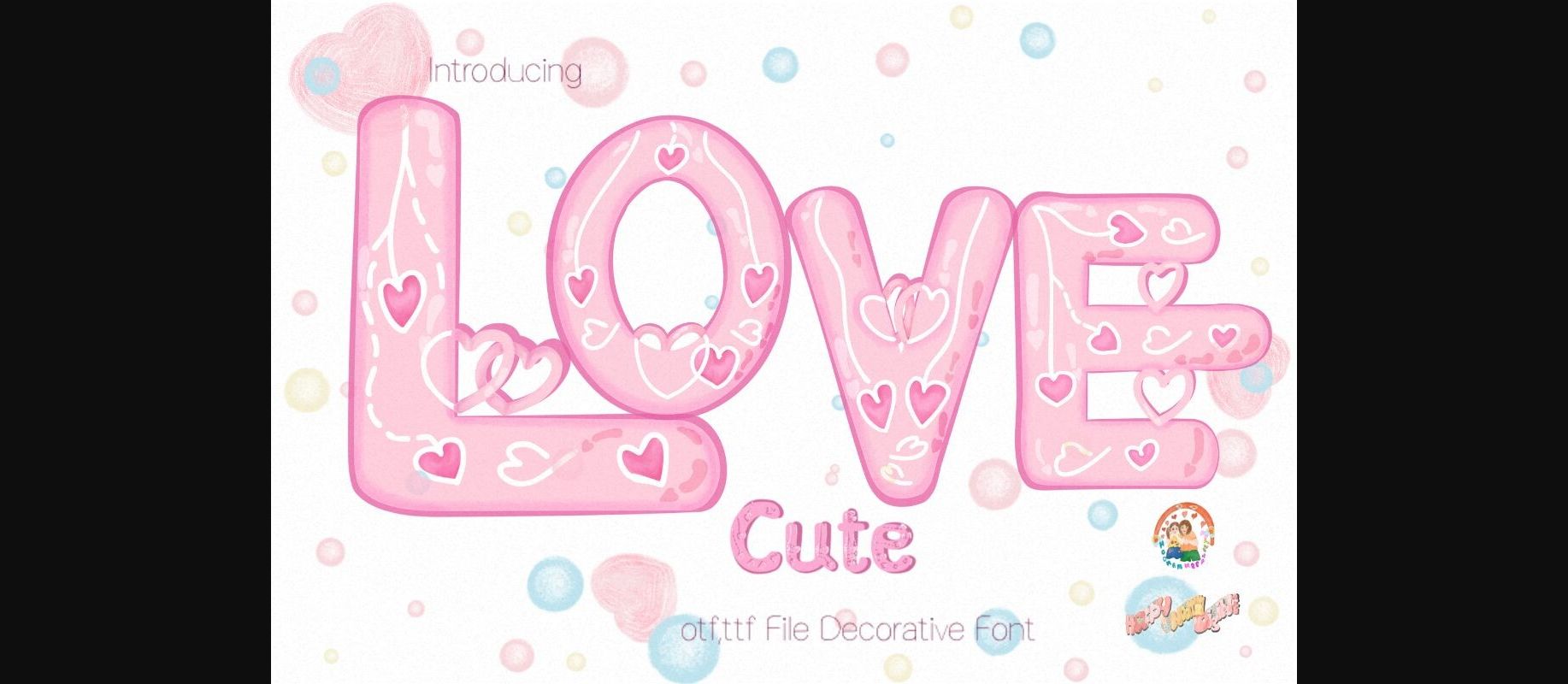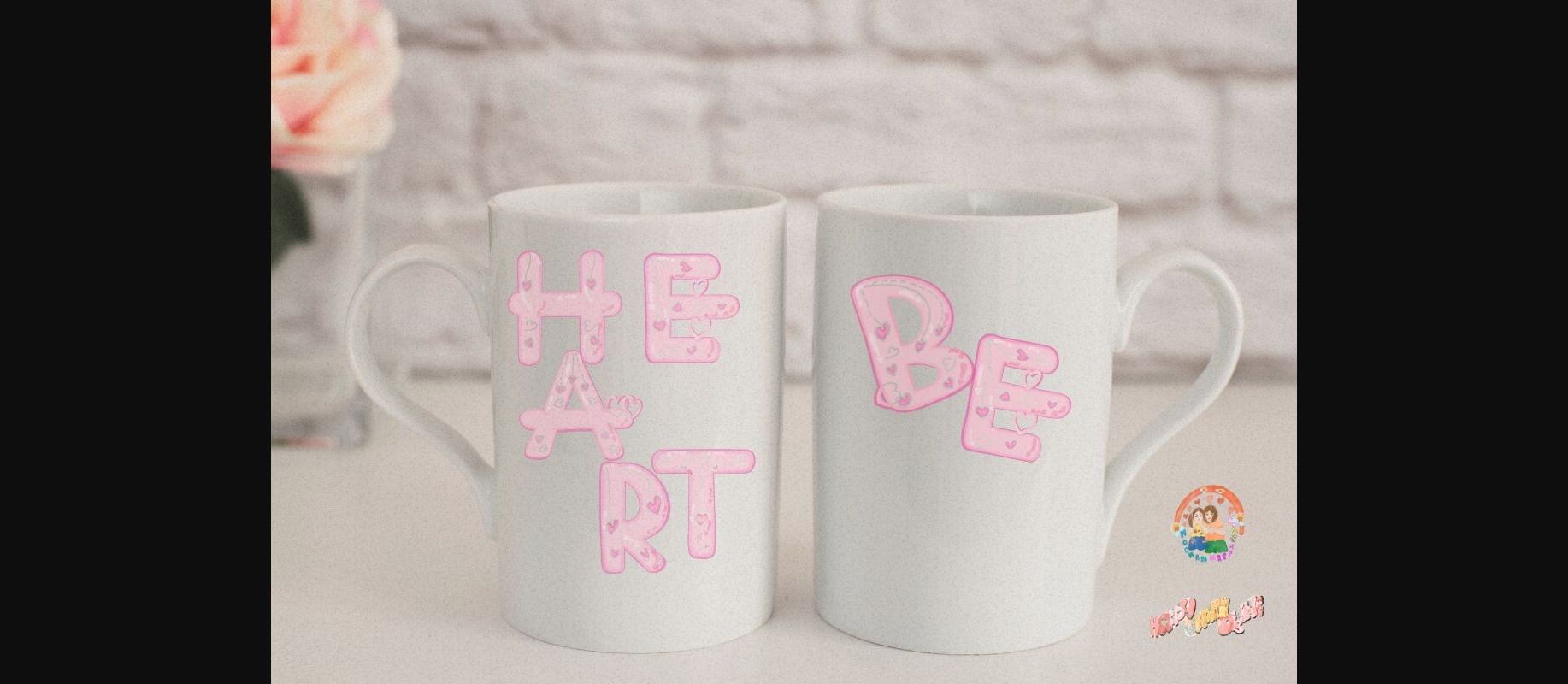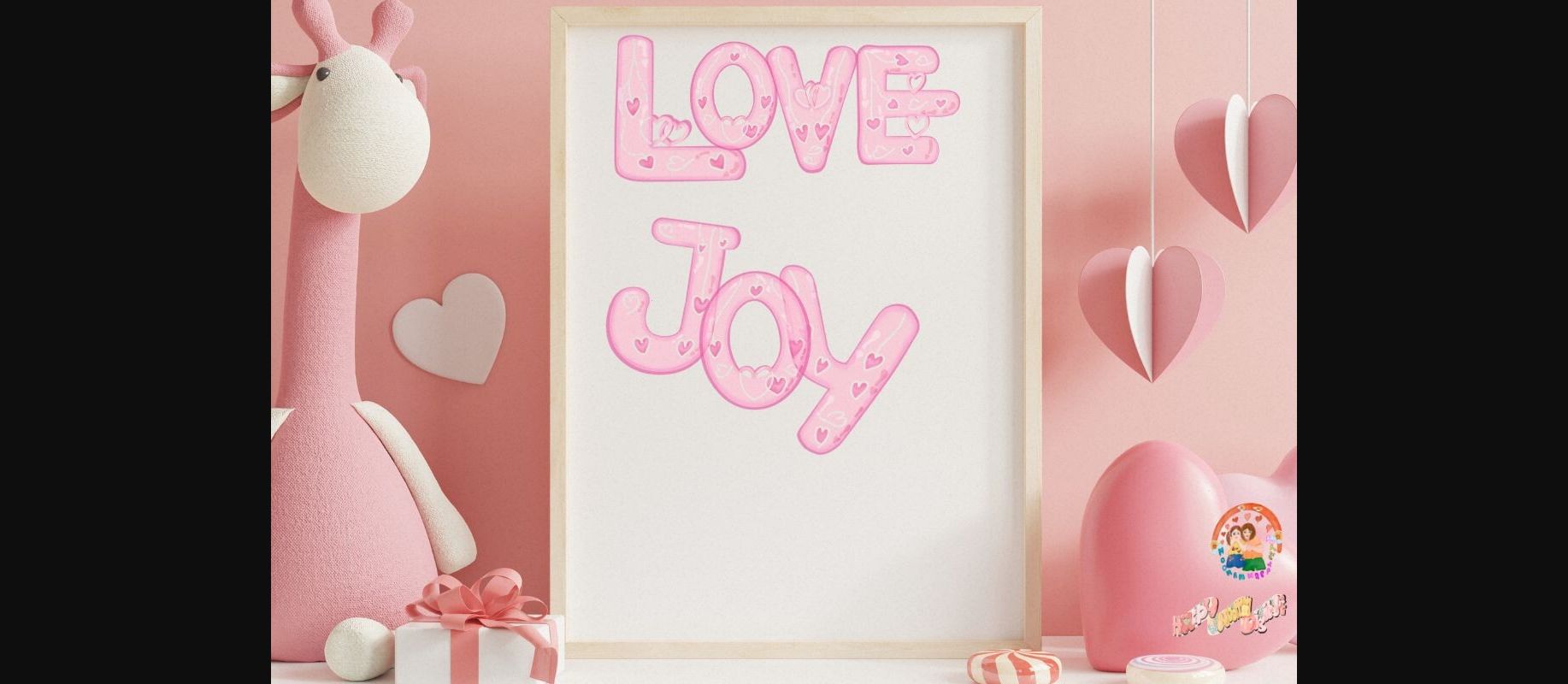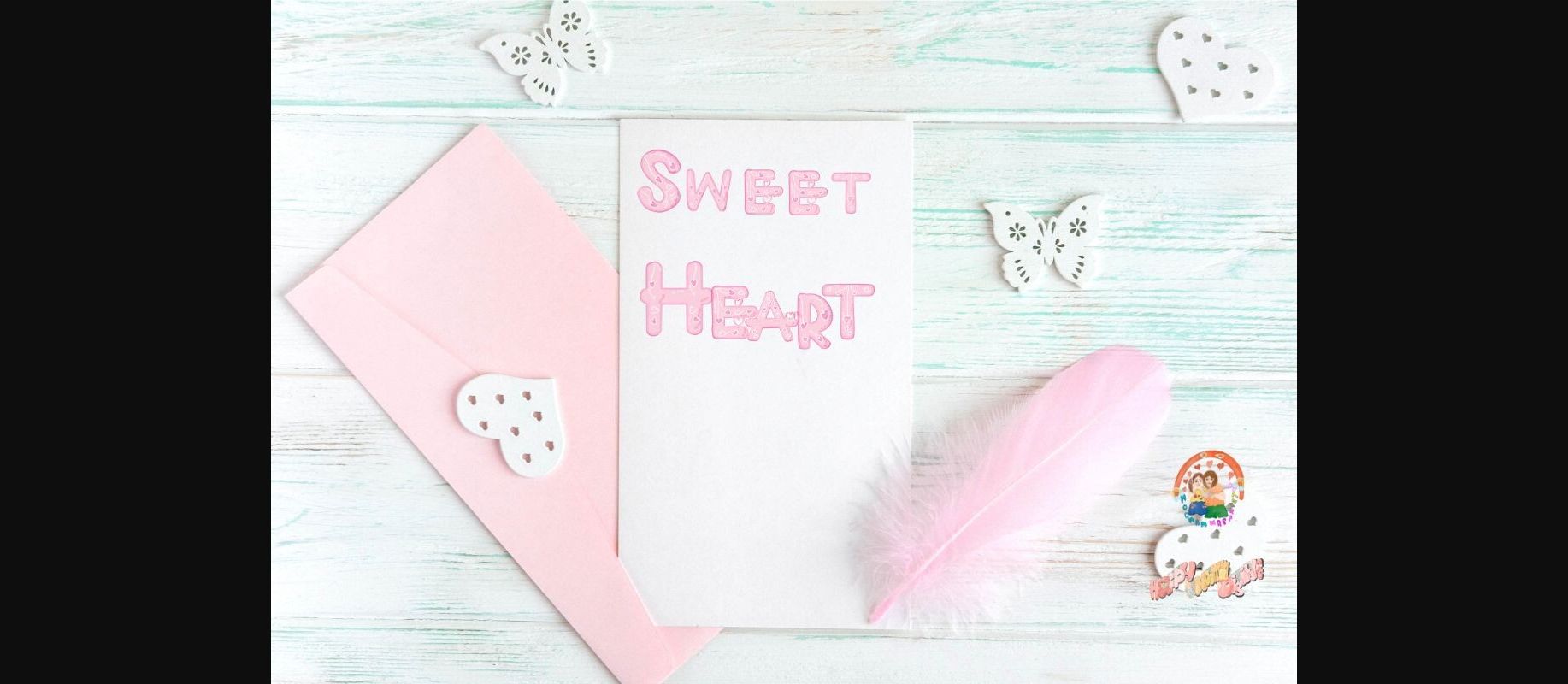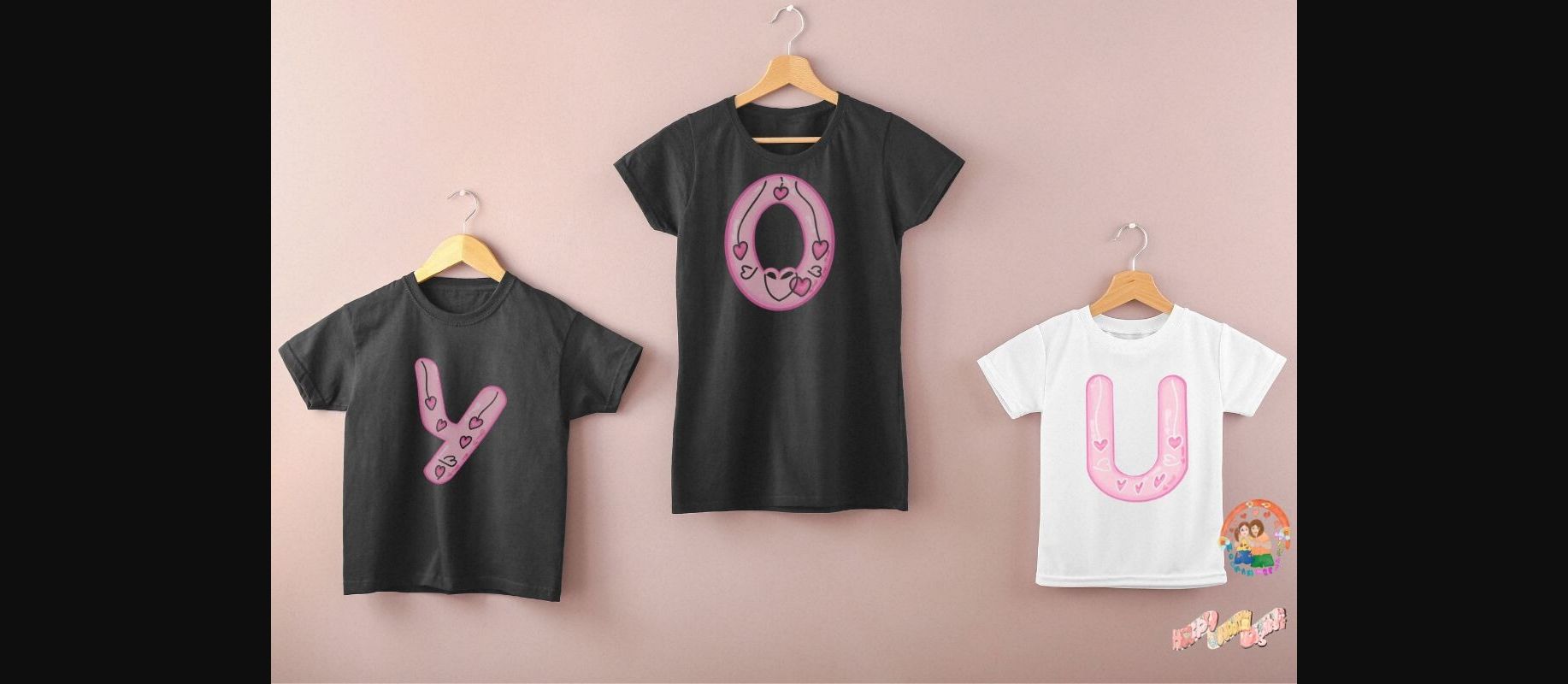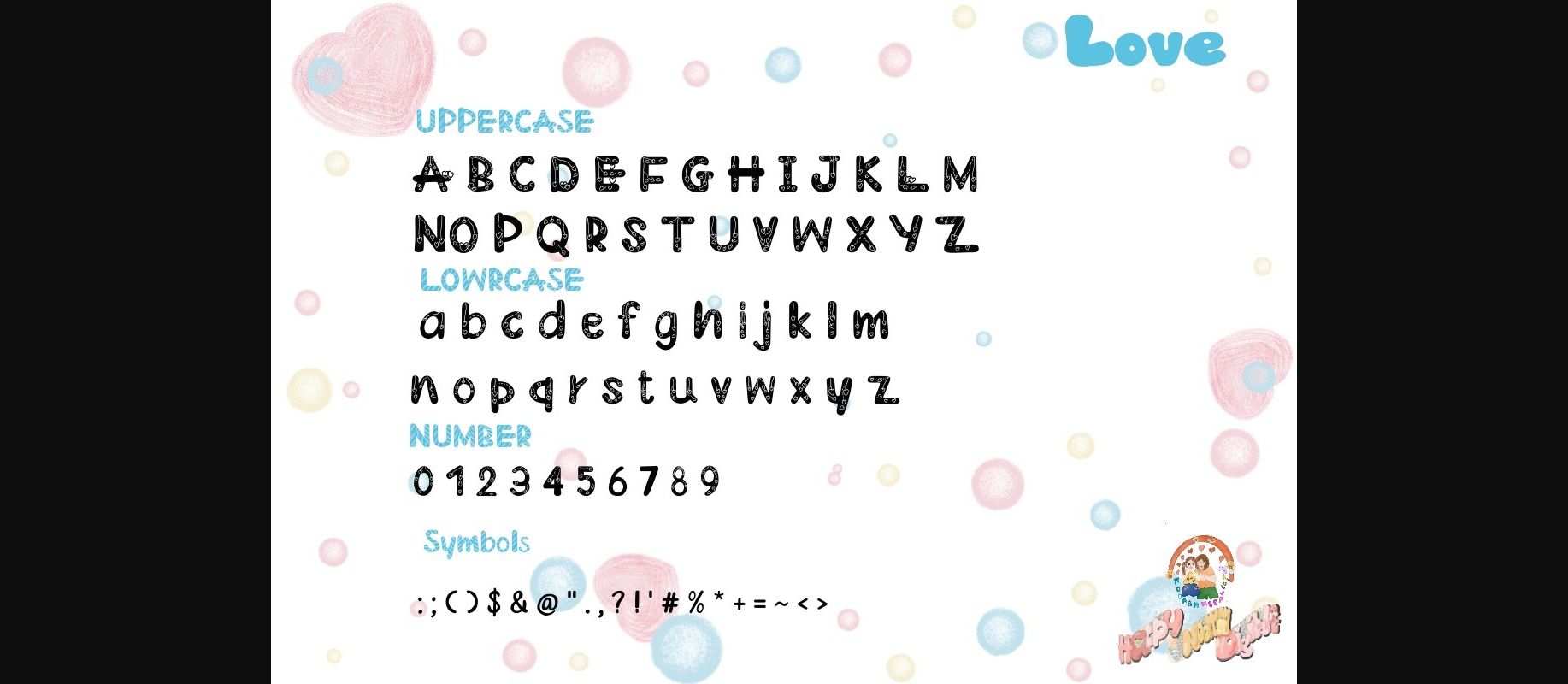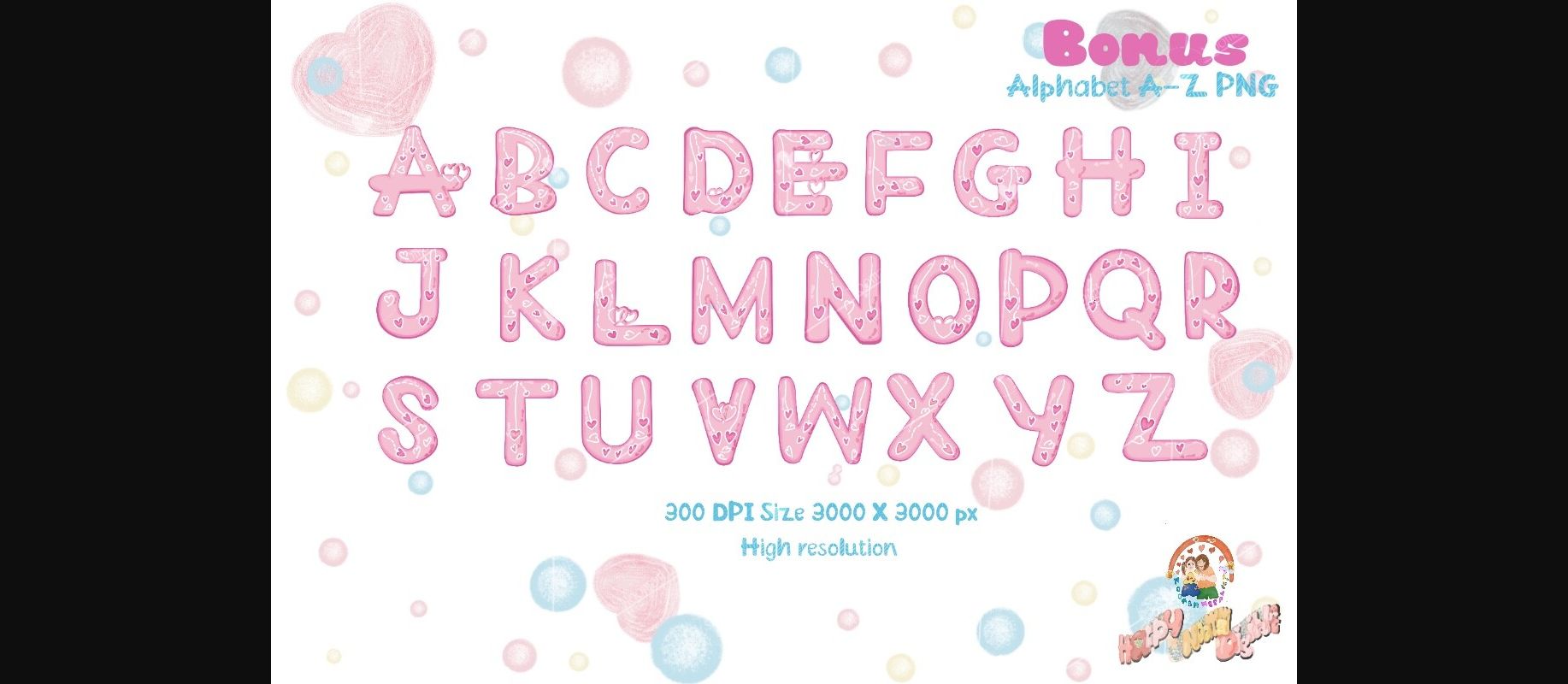
Love Cute Font
About Love Cute Font
“Love Cute” is a delightful and stylish decorative font that effortlessly blends playfulness with a touch of sophistication. Its youthful spirit makes it versatile, seamlessly fitting into professional projects such as branding designs, labels, websites, and business cards. Simultaneously, its charming aesthetic also lends itself perfectly to more casual designs like packaging, posters, flyers, quotes, social media posts, invitations, and special occasion cards. Embrace the dynamic versatility of “Love Cute” for a wide array of design endeavors, where every character exudes a delightful charm that resonates across both professional and casual contexts.